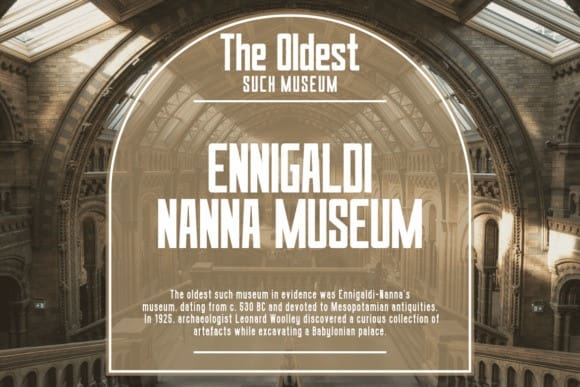
Verginea Font
Verginea Font is a display font characterized by narrower or slimmer letterforms compared to regular or wide fonts. Condensed fonts are often used in various graphic designs, print materials, and other media because they have distinct advantages and unique characteristics.